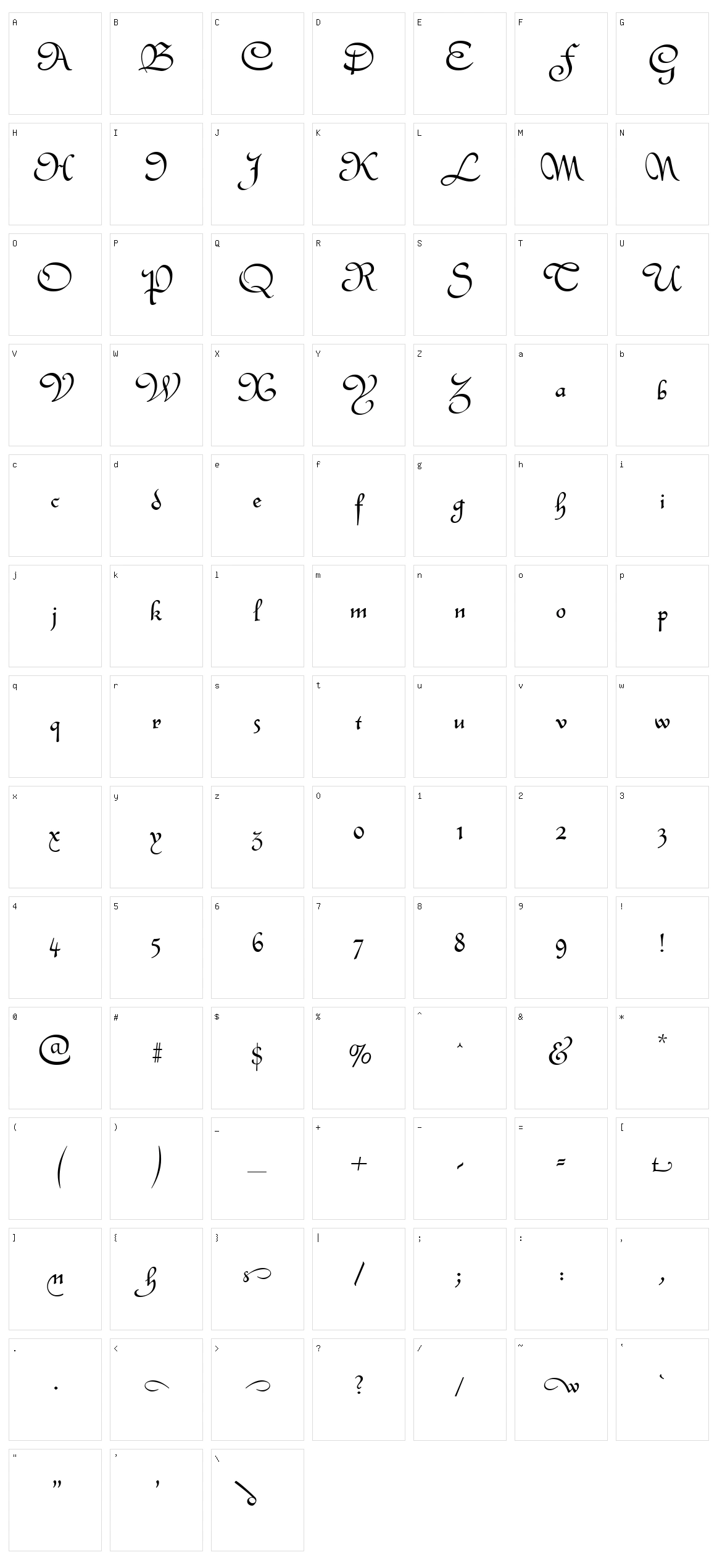
Civitype FG
===========
The font Civitype shipped with Fontographer 4.1. As far as I know it is based on a script font named "Civilité".
"Developed by S. G. Moye 1991. Public Domain."
So I had no scruples developing my own version (1.55) in 2002. Many of the alternative characters in this font went to places where they are accessible under Windows. The German double s was created new, the s with flourish went to }. The d was problematic when proceeded by an l, like in wild, build, folder etc. I adjusted it and placed the original on Ú. There is another alternative d on the backslash. Use a character map to find what you need. Mind the ch and ck ligatures on Ì and Í. I added just lowercase international characters mostly since you won't use such a font all-caps anyway. More extended characters were added in 2013 for version 1.60.